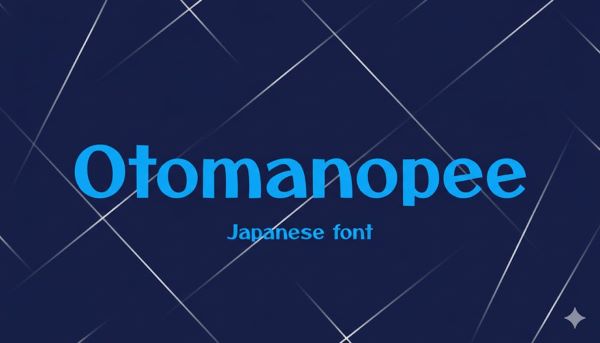
Otomanopee Font
Otomanopee is a bold, manga-inspired Japanese open source sans-serif font created by Gutenberg Labo that bridges Eastern and Western typographic traditions in a single, richly populated character set. The font includes 240 Kanji glyphs covering the characters taught in the first and second grades of Japanese elementary school, alongside a full complement of Hiragana and Katakana scripts, plus 228 glyphs from the GF Latin Core Glyph Set — making it remarkably versatile for multilingual and cross-cultural design projects.